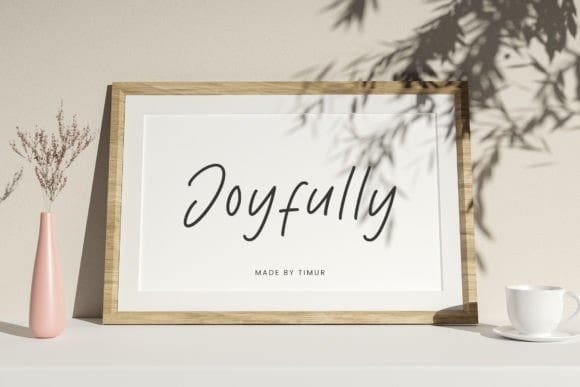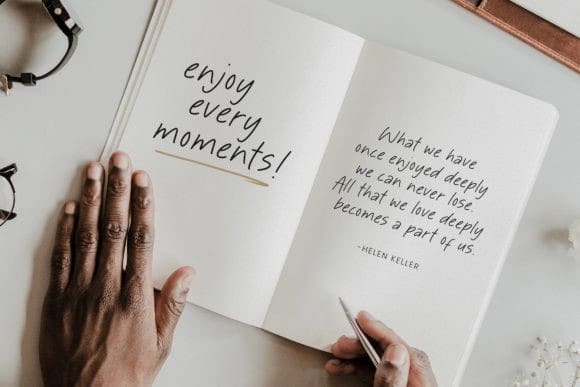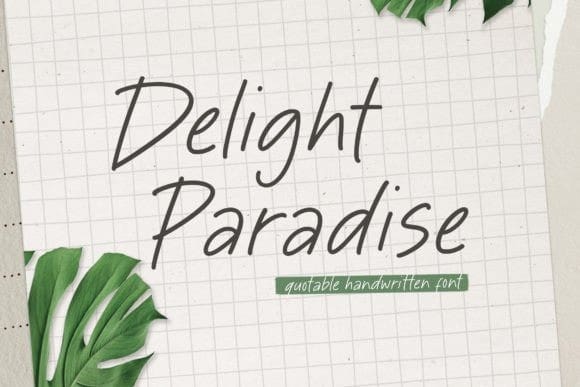
Delight Paradise Font
Delight Paradise Font is a flowing handwritten font, described by an elegant touch, perfect for your favorite projects. Fall in love with its incredibly distinct and timeless style and use it to create spectacular designs!